Fonts, typefaces, characters, glyphs – there's a lot to learn when it comes to typography! To get you started, here are some of the top font & typography tutorials for beginners...
Typography can add personality to any creative project. Whether it’s a personal website, a professional presentation, or marketing material for a brand, learning how to make your message stand out from the screen (or the page) is essential.
Good design is all in the details, and finding a font that fits can take your project to the next level. By understanding the basic elements of typography, you’ll be able to confidently combine typefaces for maximum effect, avoid making common mistakes and even craft your very own custom font.
With so much online and offline content competing for an audience, it’s never been more important for typography to turn heads. This year’s font trends are dominated by handwritten, calligraphy styles – which is all part of a push to embrace an authentic aesthetic. In addition, the trend for no-frills fonts has served up a dose of retro nostalgia. And as people spend more and more time on mobile, rounded sans serifs are proving to be a welcoming and UX-friendly choice compared with serif styles.
When it comes to hand lettering – or any other typography or font trend, for that matter – Tuts+ is here to offer a helping hand. Head to our free online learning hub to find a range of tutorials and tools you need. To get you started, here are the top font and typography tutorials to give beginners a boost.
If working with typography has got you asking, what the font? Tap into all the latest typography trends, tips and tricks with the help these handy tutorials. Covering everything from understanding the basics to making a font, you’ll soon be a whizz with your words.
Fonts, typefaces, characters, glyphs – don’t let these words overwhelm you. This Ultimate Guide to Basic Typography outlines some of the essential terms you need to know, while introducing useful signs and symbols as well as important design concepts like legibility and leading.
From ascender to x-height, this Typography: Anatomy of a Letter tutorial will help you get to grips with a range of technical terms used to refer to different parts of a letter. As a result, you’ll gain a better understanding of how to space and size your written content.
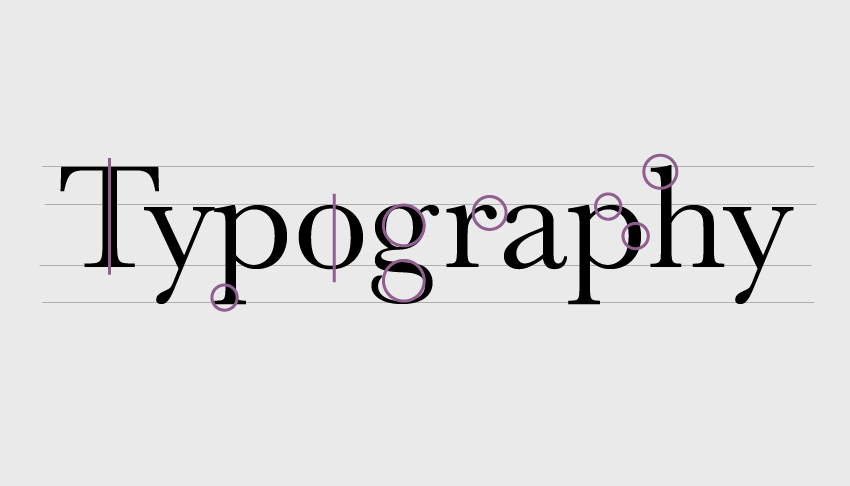
In this tutorial, you’ll learn about font collections and categorizations along with a side helping of history – from classic serif fonts used in early printing presses to the Neo-Grotesque typefaces of the late 1900s. You’ll soon be able to confidently pick something perfect for your next design project. And if you want to add an action-packed element, take a look at our kinetic typography round-up, which highlights the very best fast font templates.
Serving up a design-lover’s dictionary, this A to Z of Typography tutorial covers essential typography terms. Some you will have heard of, some might be new – but every explanation will strengthen your understanding of the fundamentals of using fonts.
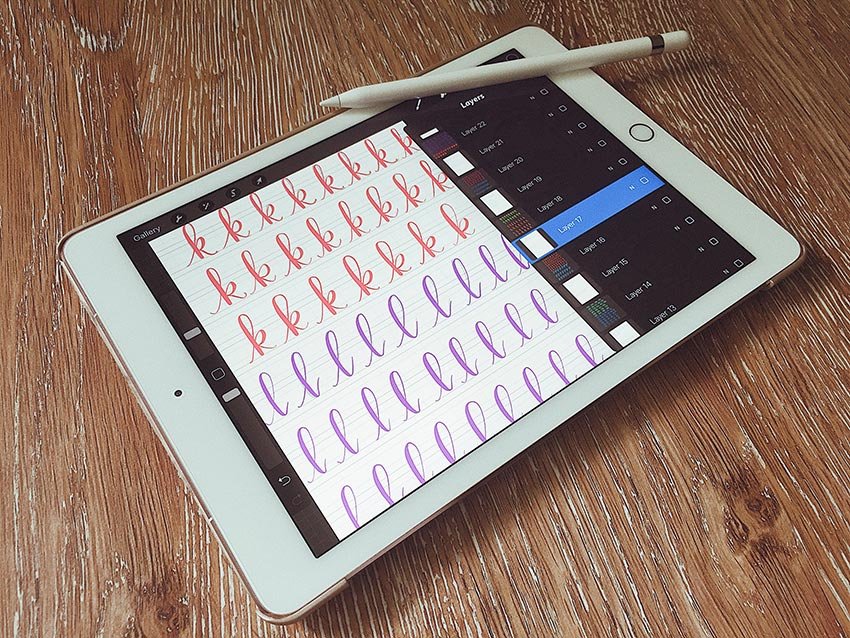
Want to know how to make a font? This graphic design tutorial provides the tips and tricks you need to start drawing and designing your own letters. Once you’ve mastered the alphabet, it’s time to try out numbers and symbols – or even a second complementary or contrasting font in order to create a dynamic font duo.
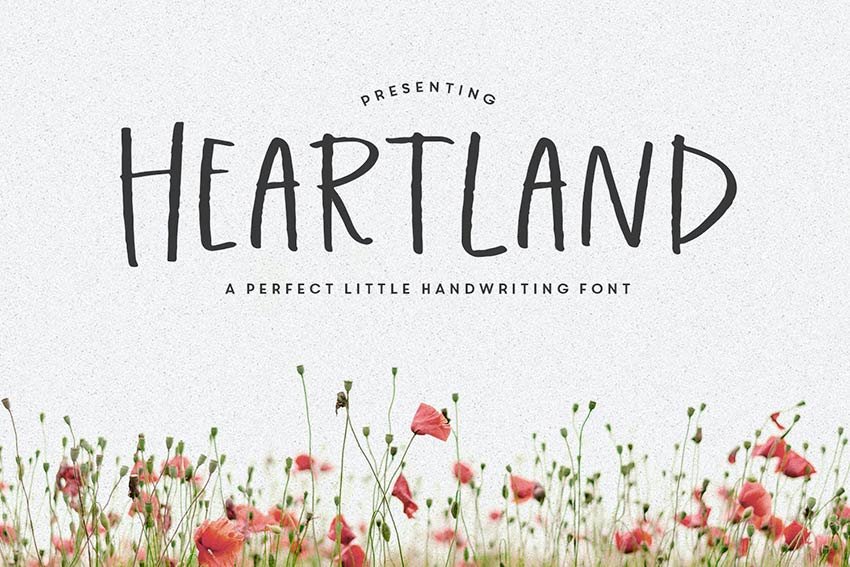
If you want to give your work a truly personal touch, this typography drawing tutorial explains how to optimize your handwriting, scan your artwork and convert your letters into a font you can use in your digital designs.
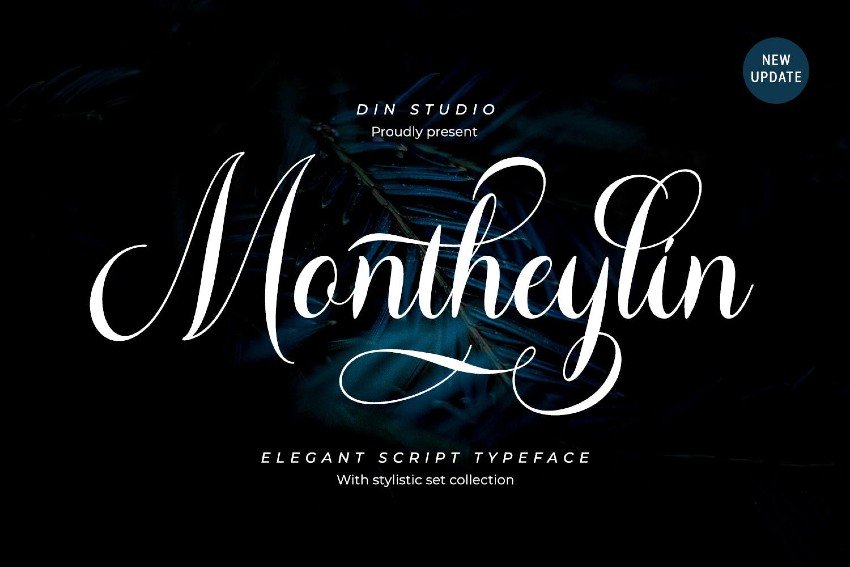
Add an elegant element to your design by embracing cursive script writing. From practicing basic strokes to joining letters, you’ll soon be writing without hardly ever having to lift your pen off the paper. This curly, swirly masterclass also features a whole host of calligraphy fonts for your digital projects that are available via Envato Elements.
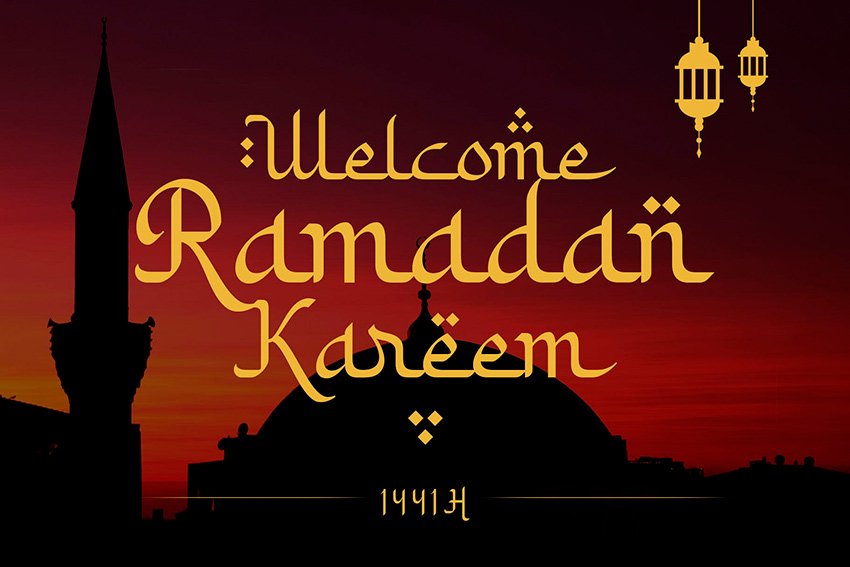
Arabian-style scripts are one of the trending fonts we identified for this year, so check out this eye-catching collection of Arabic calligraphy learning guides that have been designed especially for beginners. From classic to contemporary and abstract to ornate, it’s an inspiring introduction to the artform.
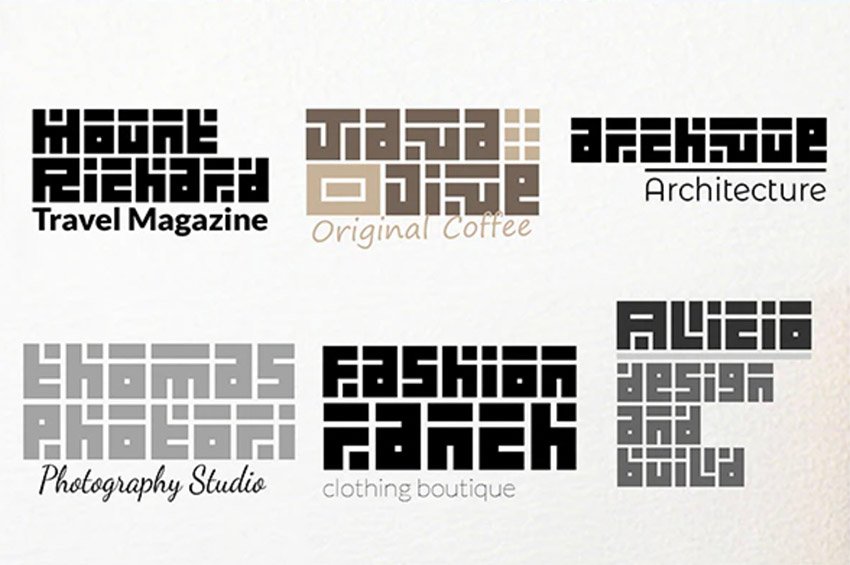
The simple structure of Square Kufic – it’s actually a precursor to pixel art – makes it a great place to start if you’re interested in Arabic calligraphy. Use this font tutorial to adapt the Latin alphabet and to introduce repeating and rotating patterns to your work.
Time for some analog adventures with this beginner’s lesson on lettering, which includes basic concepts, how to set up a hand lettering practice sheet and the fundamentals of Roman and Greek letterforms.